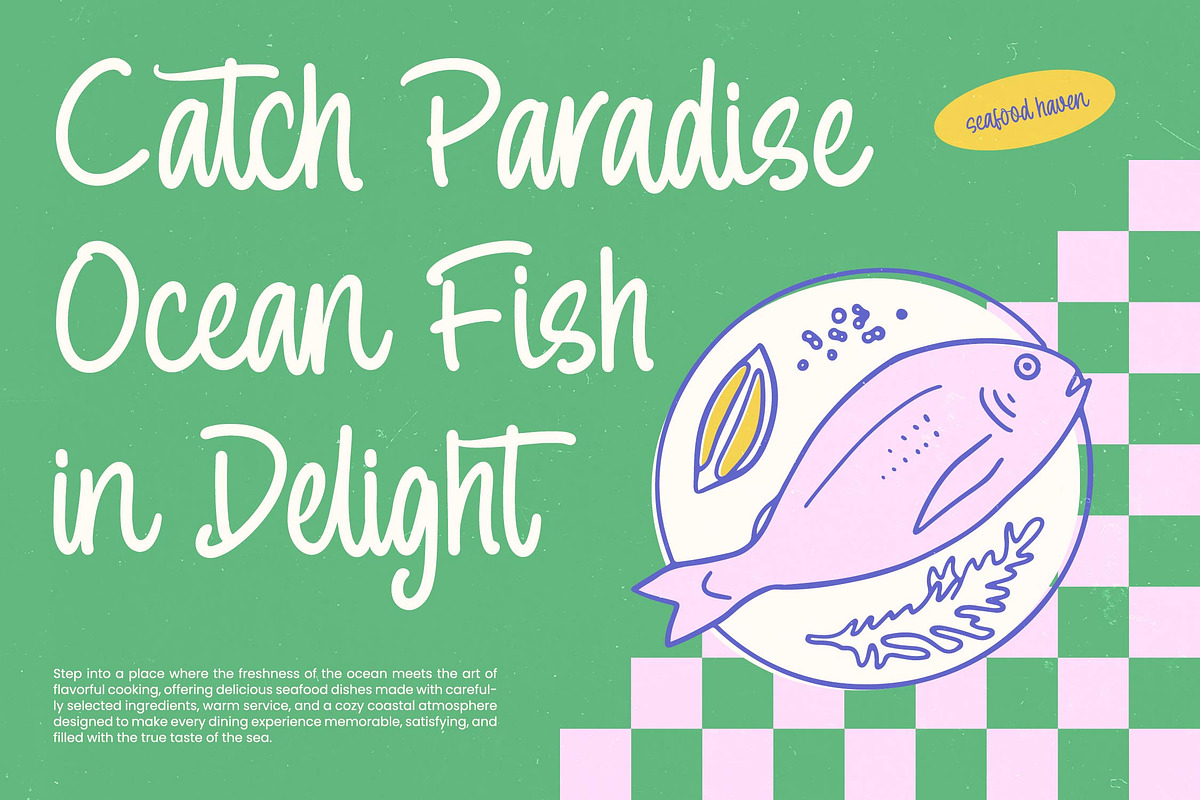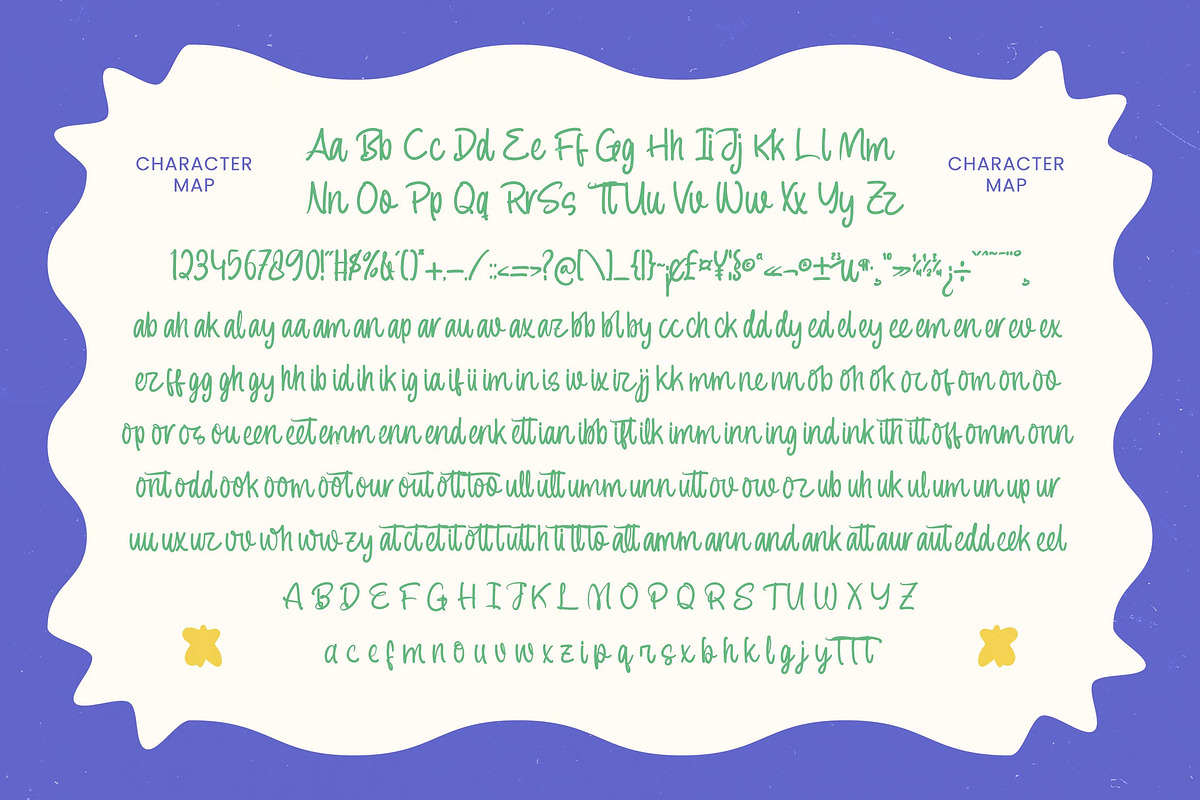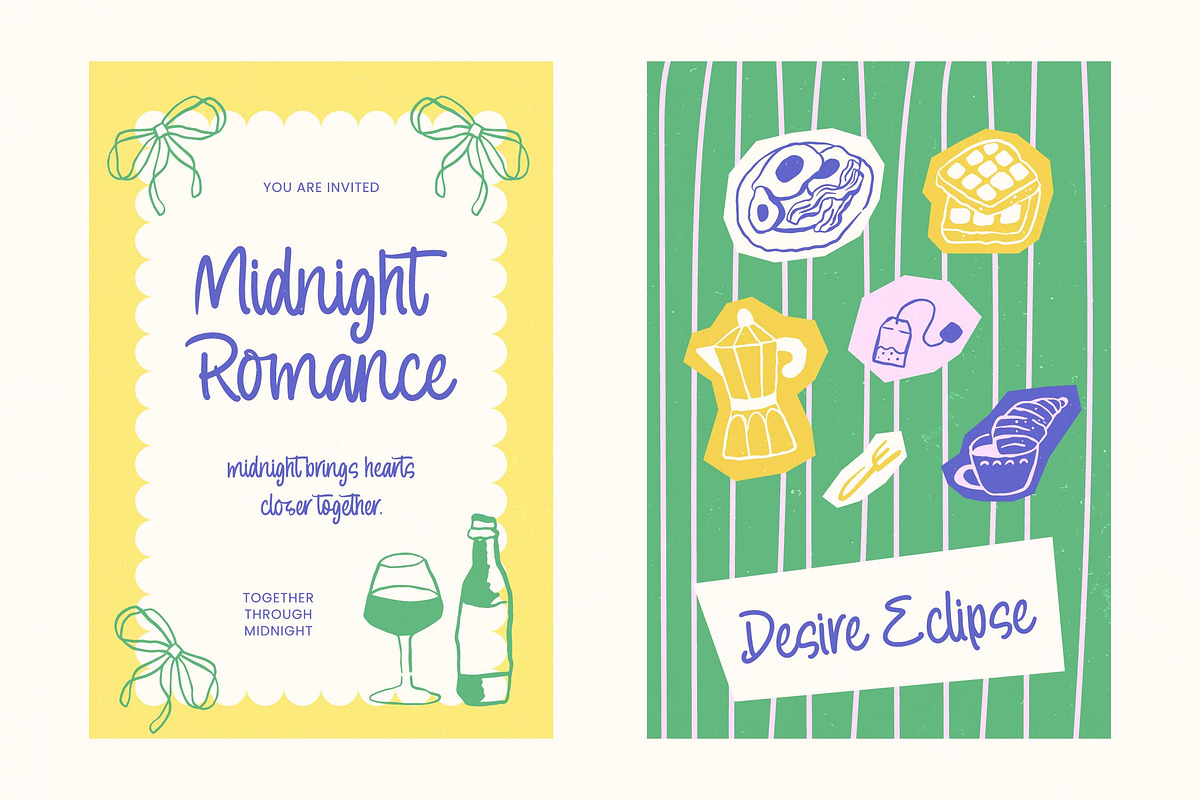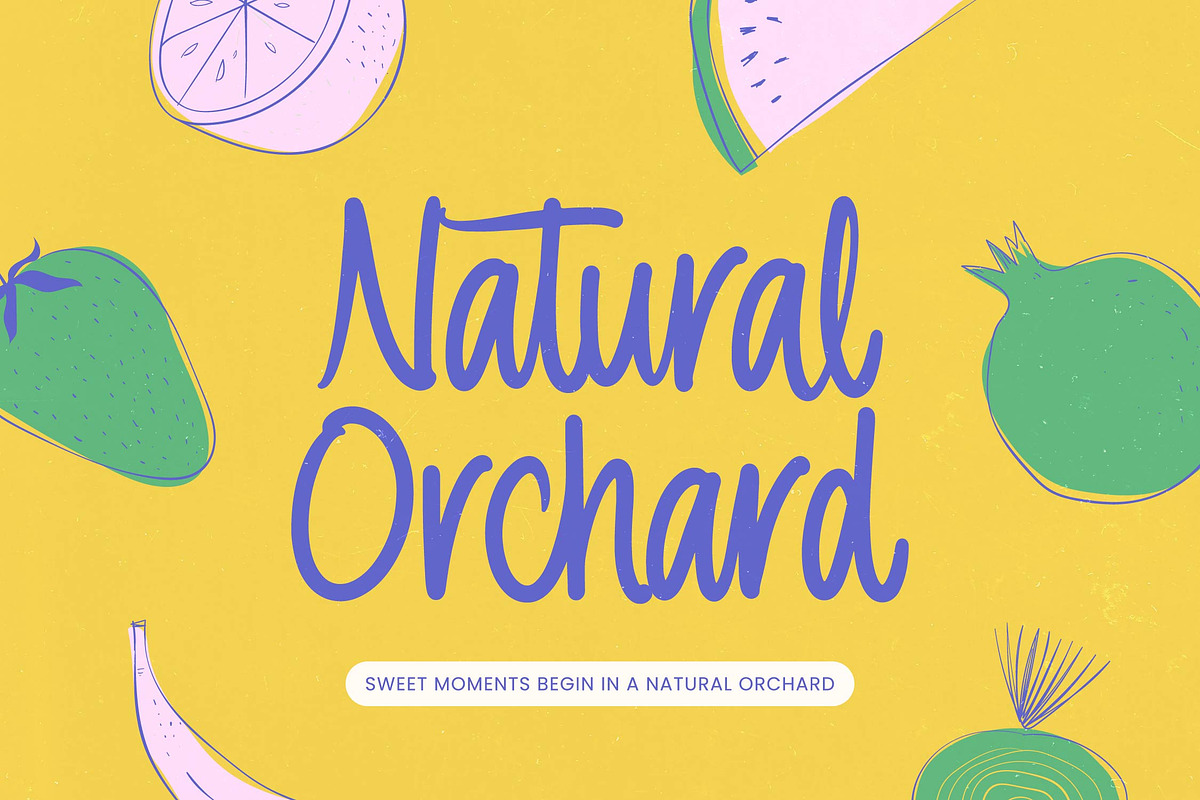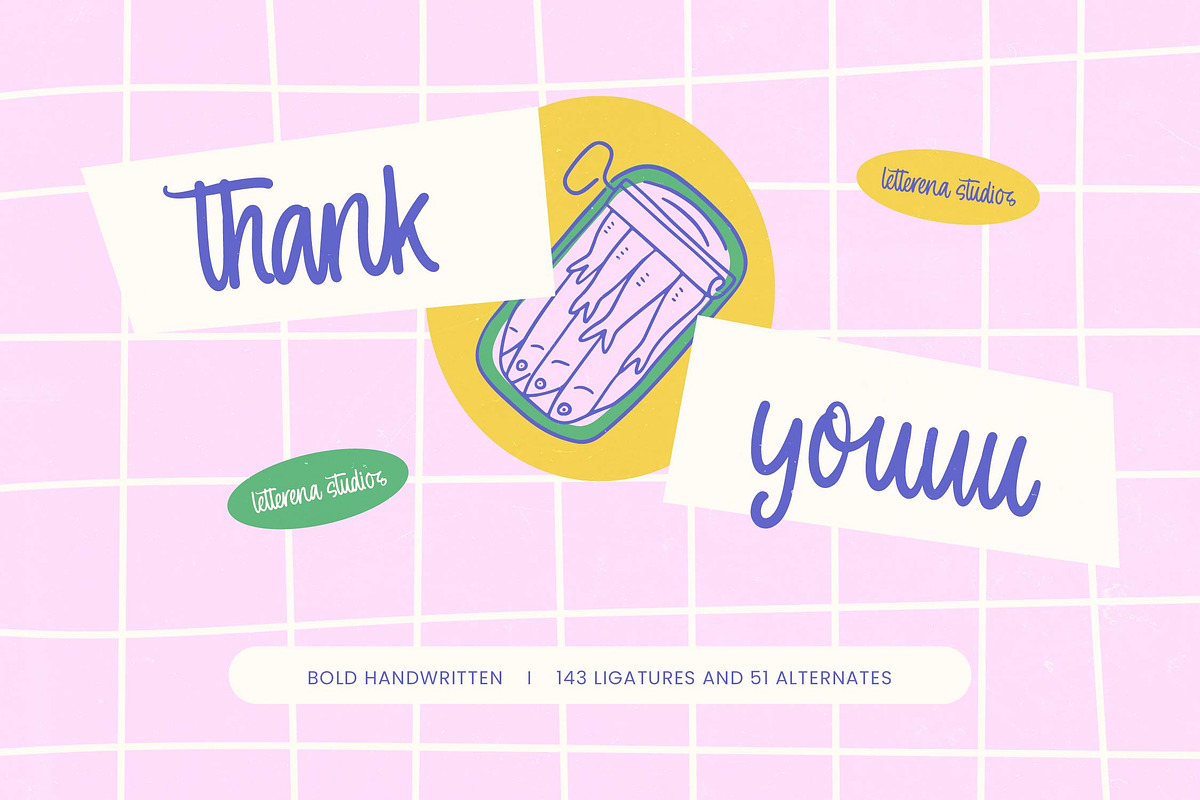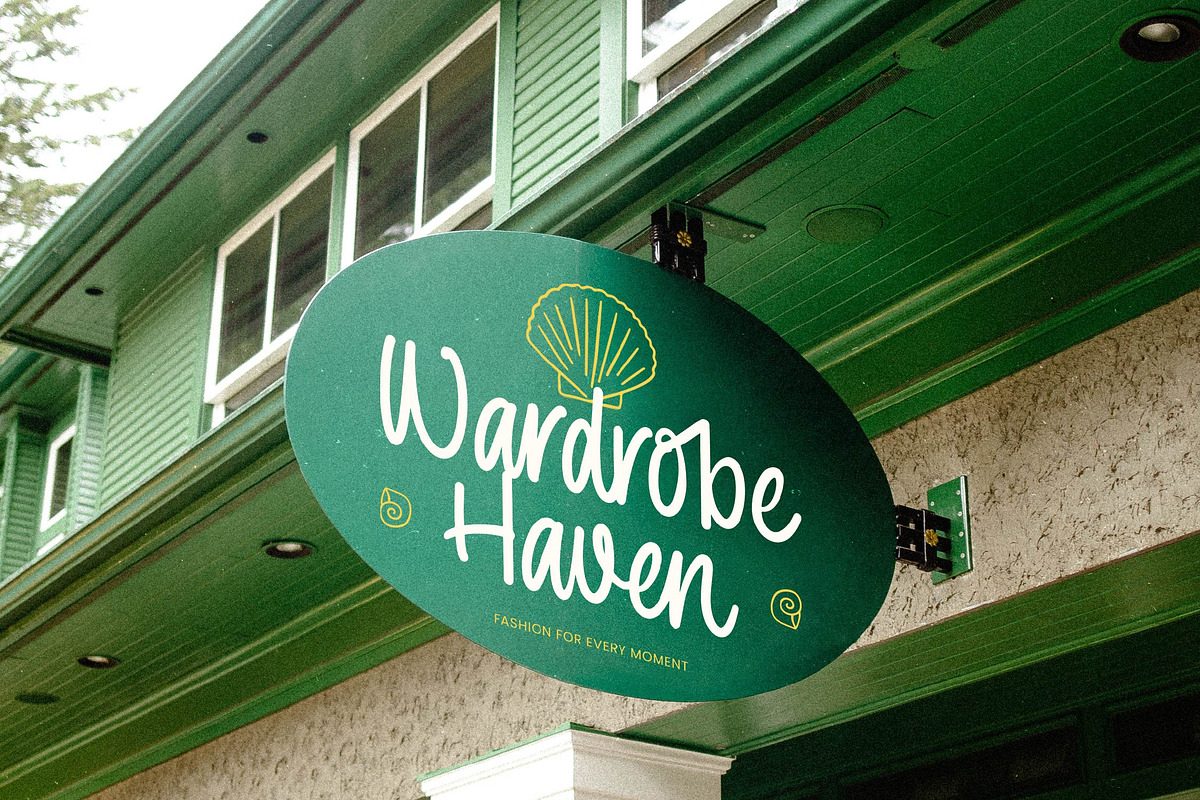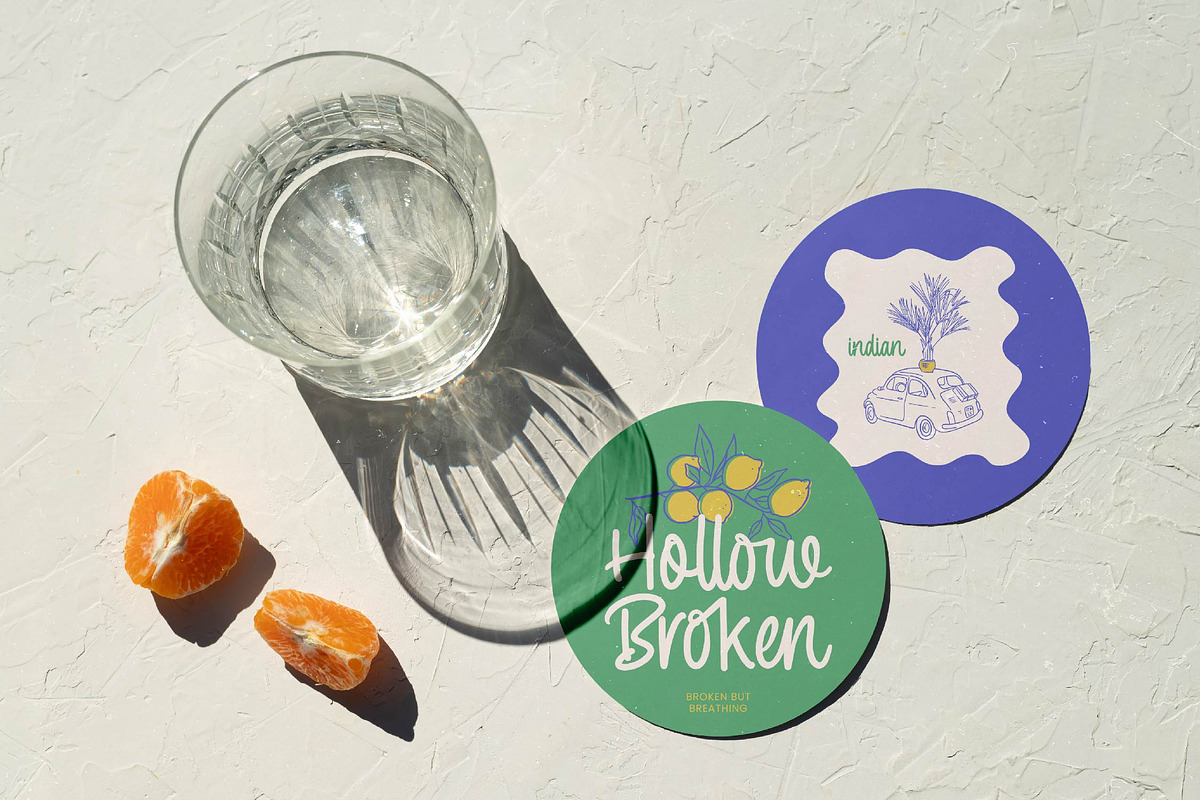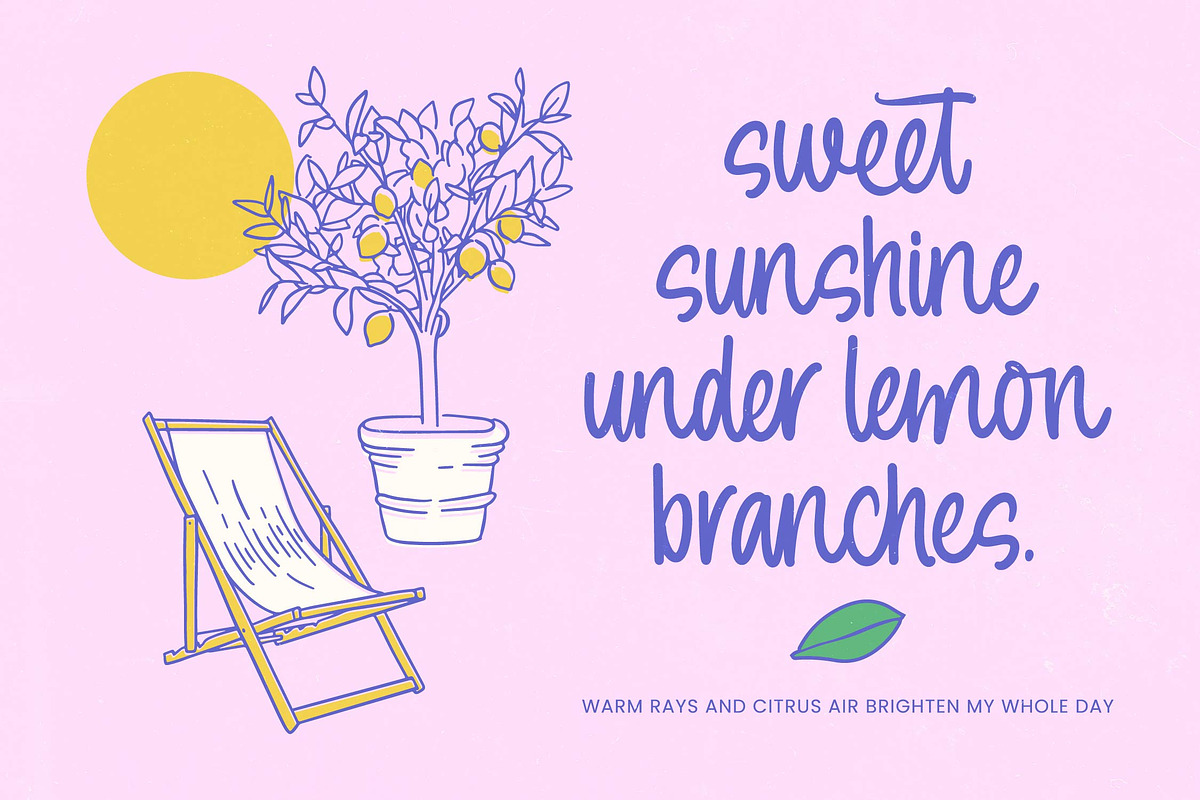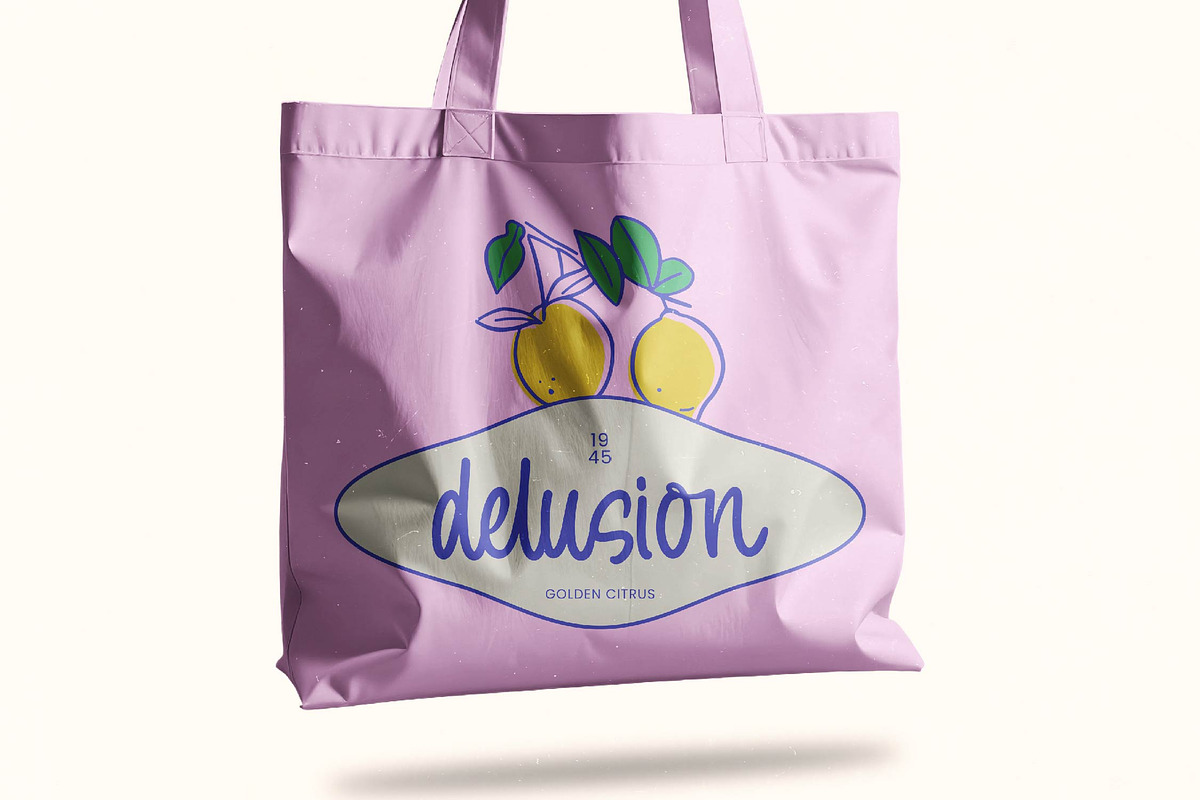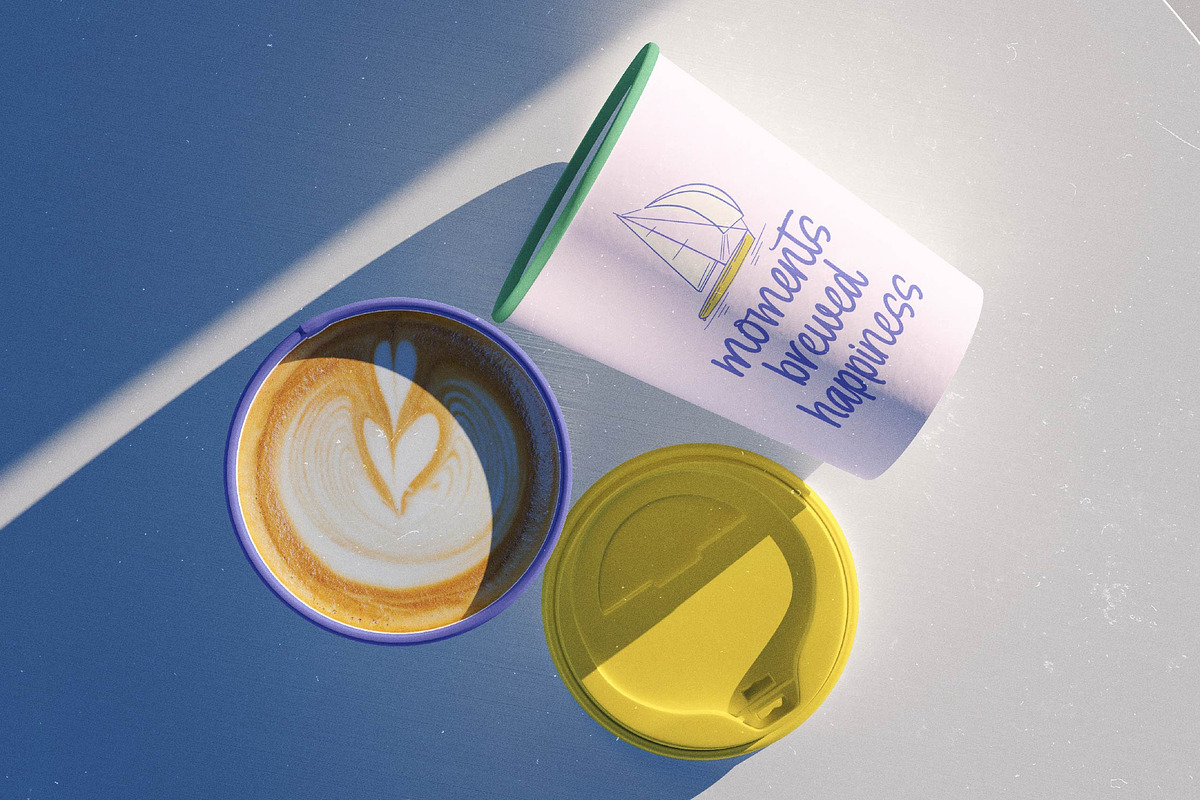
Chiller Sumer Bold Handwritten
Chiller Sumer - Bold Handwritten
Elevate your brand identity with the infectious energy of a truly unique and handcrafted typeface. Chiller Sumer - Bold Handwritten captures the essence of a playful, organic aesthetic while maintaining professional clarity. Its bold, fluid strokes and hand-drawn character offer a refreshing alternative to rigid fonts, making it perfect for creating an authentic and approachable brand voice. With its dynamic letterforms, this font injects a sense of personality and warmth into every creative layout.
Precision engineering meets creative freedom with an extensive suite of advanced typographic features. Boasting 143 ligatures and 51 alternates, Chiller Sumer - Bold Handwritten provides designers with endless possibilities for customization, ensuring that each word looks bespoke and natural. With its extensive multilingual support, Chiller Sumer - Bold Handwritten adapts seamlessly across global markets, making it incredibly versatile for international projects and ensuring your message resonates regardless of geographic boundaries.
Transform your marketing materials into standout visual assets with this high-impact design tool. This typeface is an ideal application for lifestyle branding, innovative packaging, and vibrant editorial design. Specifically, Chiller Sumer - Bold Handwritten is perfect for social media graphics, product labels, and apparel design where a bold, friendly presence is required. Whether you are designing for a summer-themed campaign or a modern food brand, it delivers the high-contrast visibility necessary to capture attention.
Secure a competitive edge in the digital landscape with a typeface that prioritizes legibility and commercial style. Investing in Chiller Sumer - Bold Handwritten means choosing a high-quality typographic solution that balances artistic flair with functional performance. Its distinctive personality helps brands stand out in a saturated market, offering a premium look and feel that is both trendy and timeless. Elevate your creative toolkit today by integrating the bold, expressive energy of Chiller Sumer - Bold Handwritten into your next high-profile project.